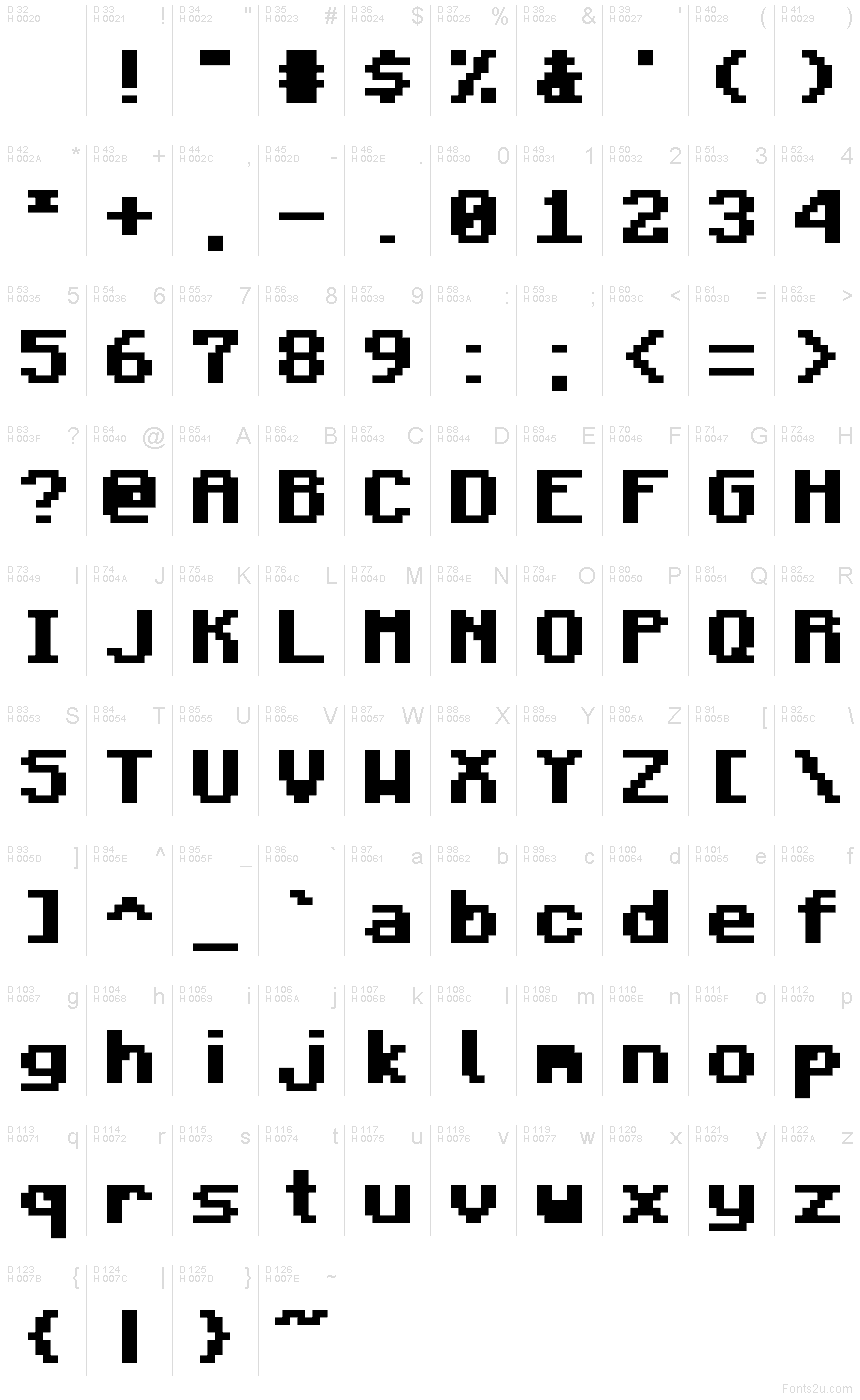
mac's Extended Minecraft Bold
mac's Minecraft Bold Extended font is a display bitmap option inspired by the aesthetic of the iconic Mojang game and which has pixelated letters that carry within them loads of nostalgia. The typeface features thick expanded letters with big dots and suspensions in their general appearance; it pleases both retro and modern audiences.
Write with this geometric, modern, and pixelated free font on your websites, cover pages, posters, product packaging boxes, greeting cards or invitations to make them all look very unique. You can even decorate your social media posts and get followers closer than ever to your brand.